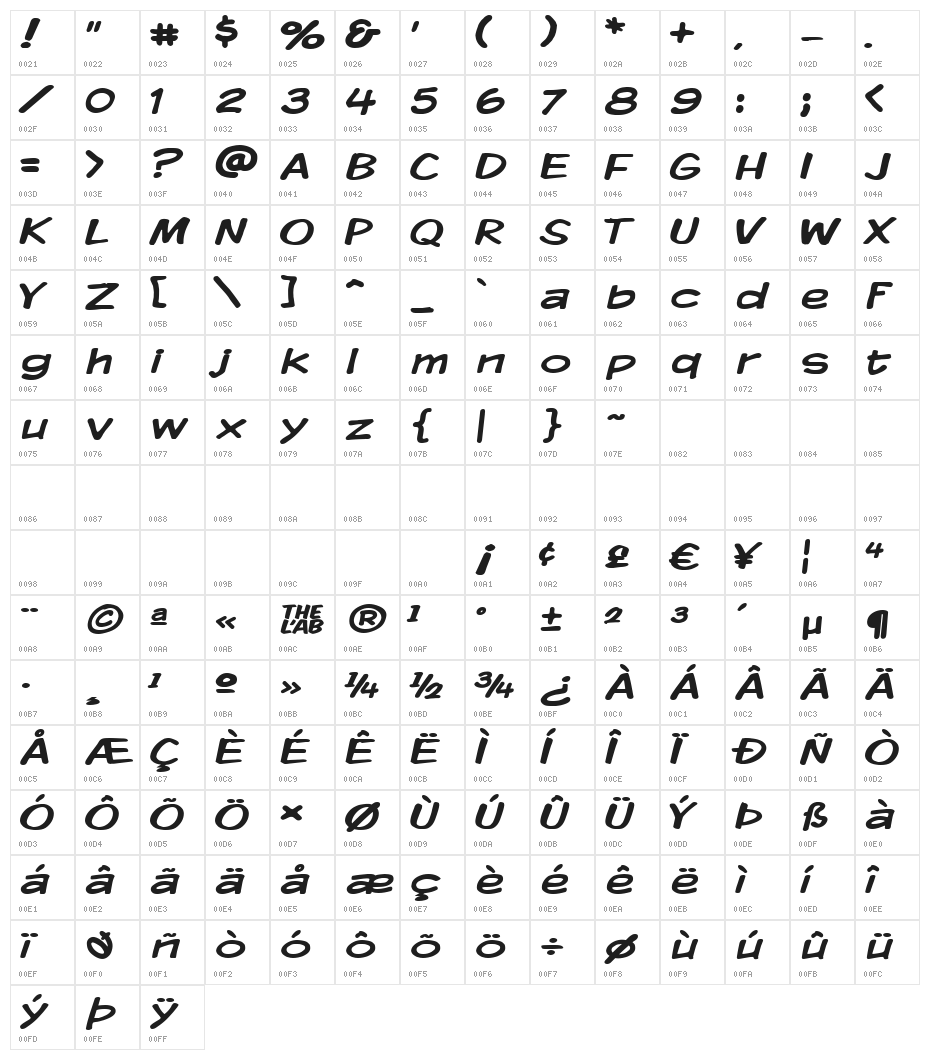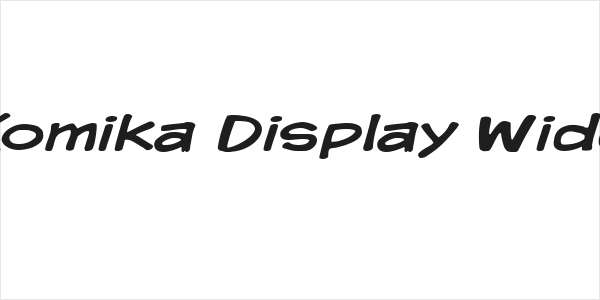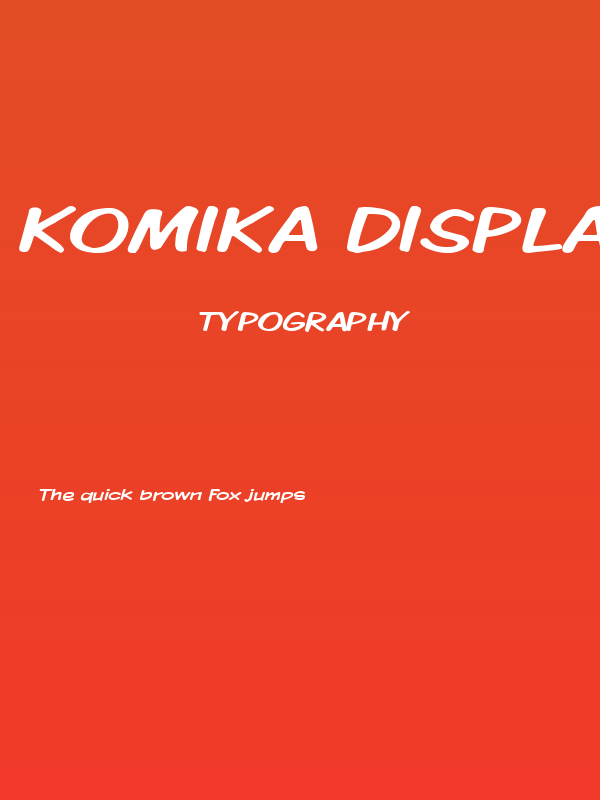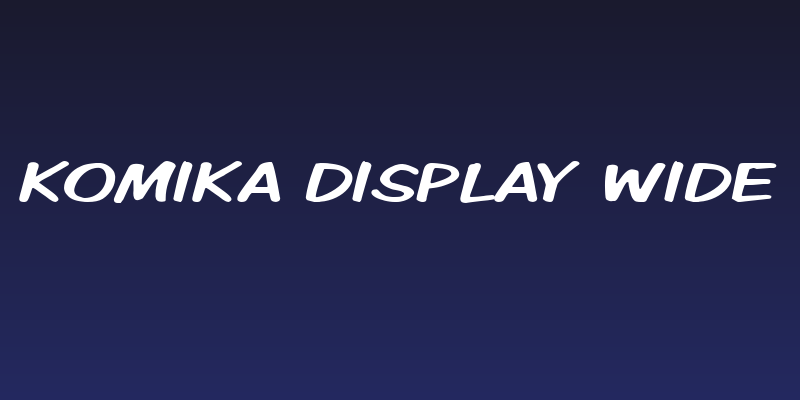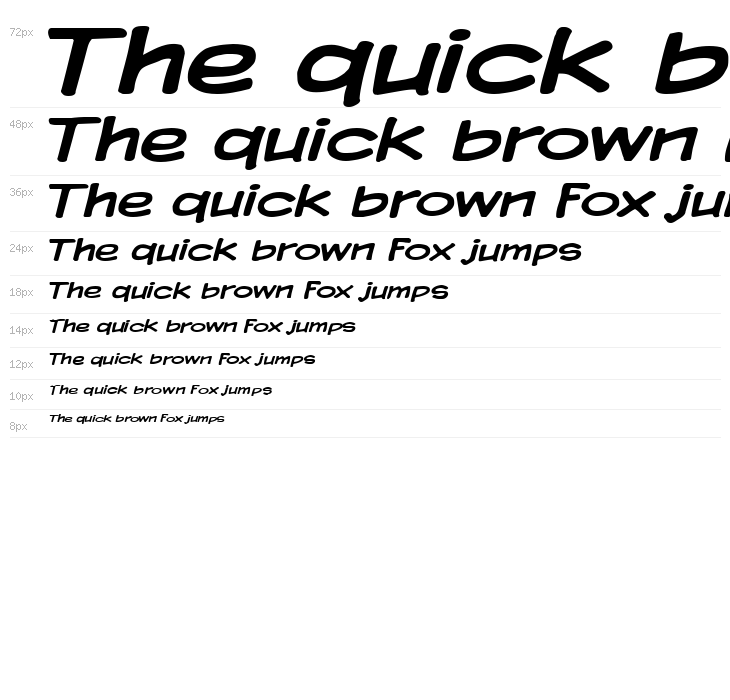
Komika Display Wide Font
Komika Display Wide Description
This font features a playful and bold style with a wide stance, giving it a comic-like appearance. The letters are rounded and slightly slanted, adding a dynamic and informal feel. The uppercase and lowercase characters maintain a consistent weight, providing a cohesive look across the alphabet. The numerals and special characters follow the same design principles, ensuring uniformity. Its wide character width and bold strokes make it highly legible and eye-catching, suitable for various creative applications.
| Overall Style | Playful, Comic |
| Proposed Projects | Ideal for comic books, children's books, playful branding, posters, and any project requiring a fun and informal touch. |